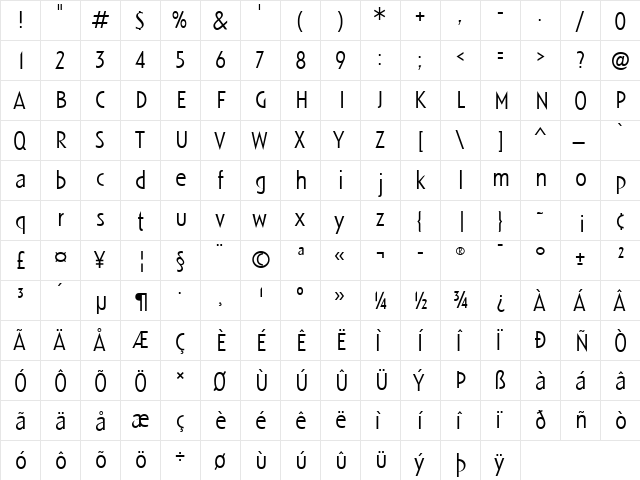
LTSpitz Light Regular
Design Context for LTSpitz Light Typeface
LTSpitz Light offers clean, dependable letterforms without strong stylistic allegiance, making it a practical choice for designers who need flexibility. Its slender proportions lend an understated elegance to any composition.